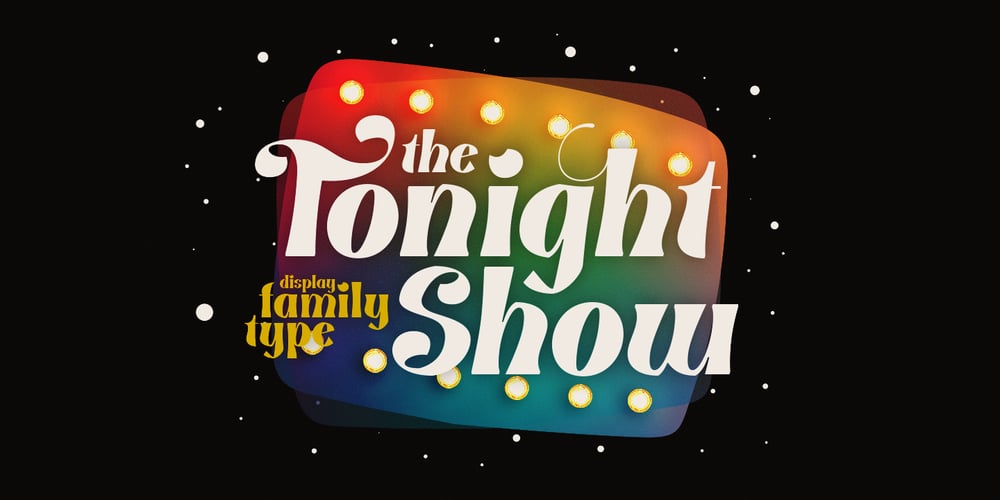
NT Tonight Show Font Family was designed by Nurron Shodiqin and published by Nurrontype. NT Tonight Show contains 12 styles and family package options. I was watching last episode of Tonight Show with Letterman when I develop NT Tonight Show. My idea, I want to make a font that represent showbiz industry. Voila, here’s Tonight Show. A contrast, bold, versatile. With swash and alternate option.